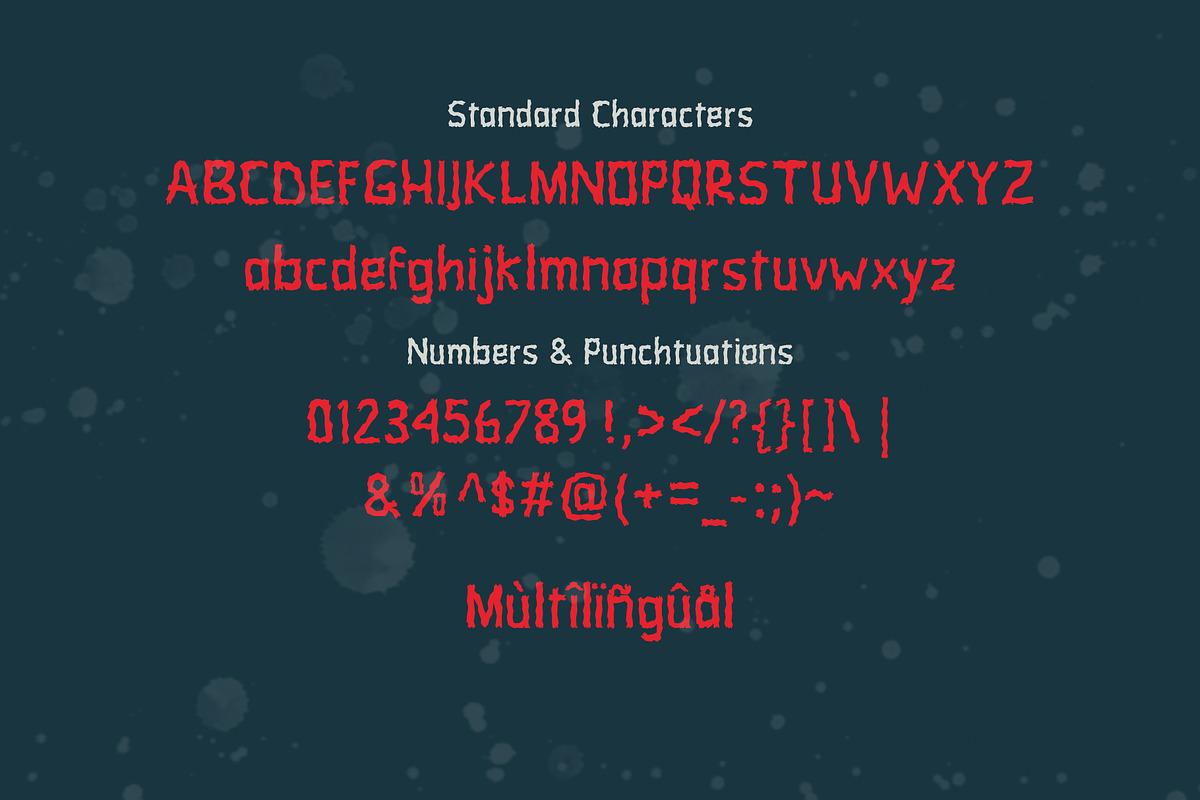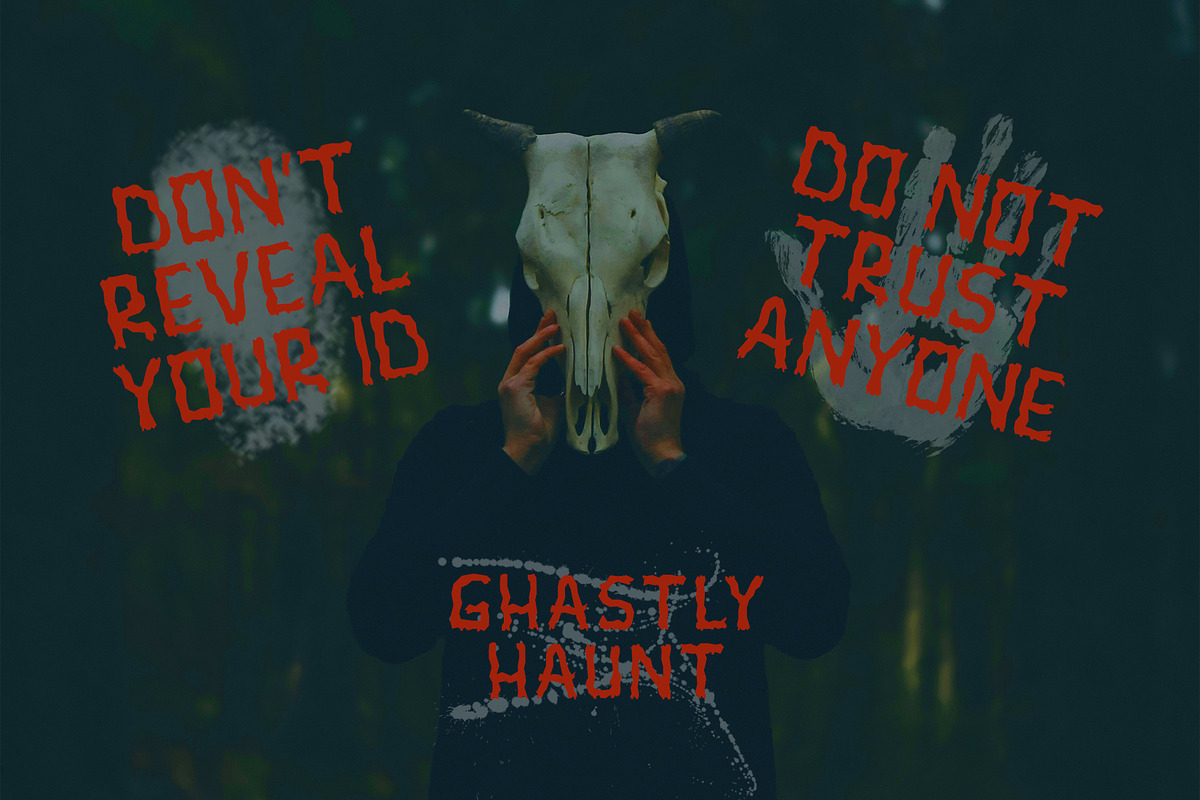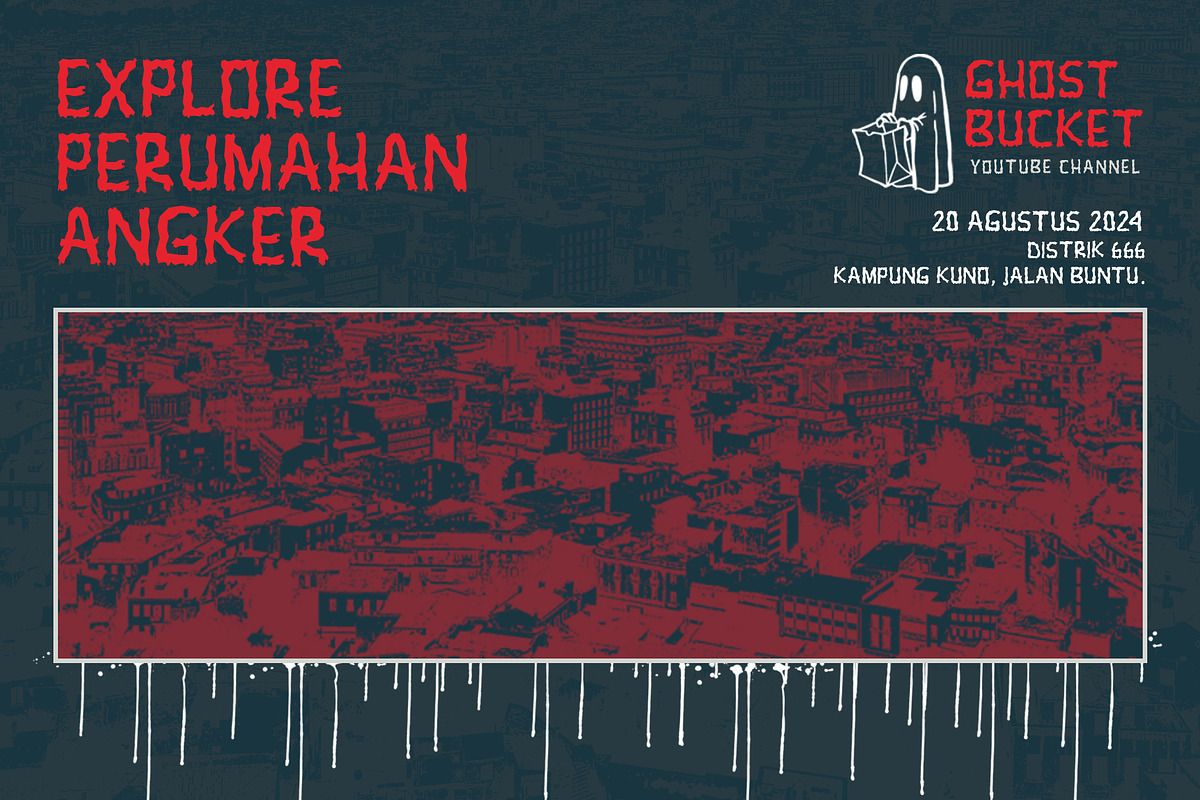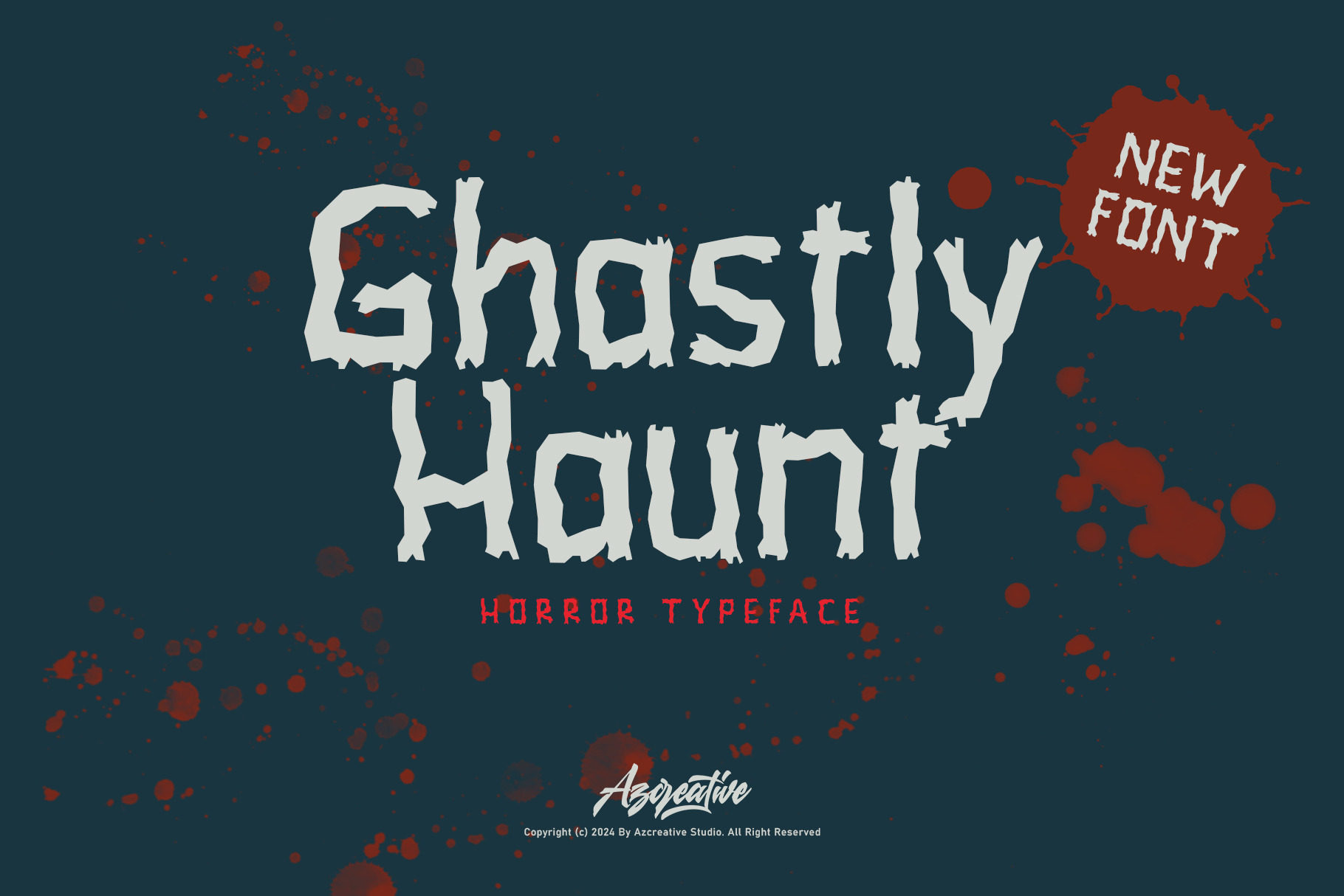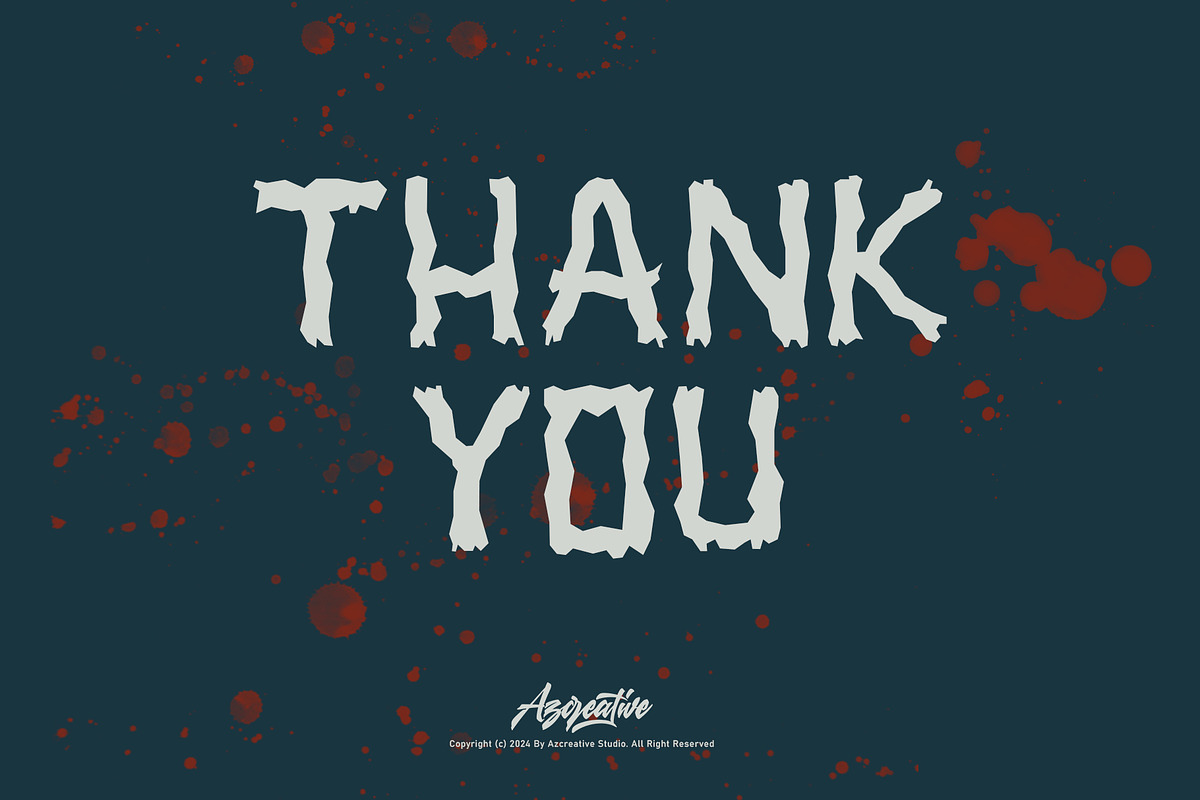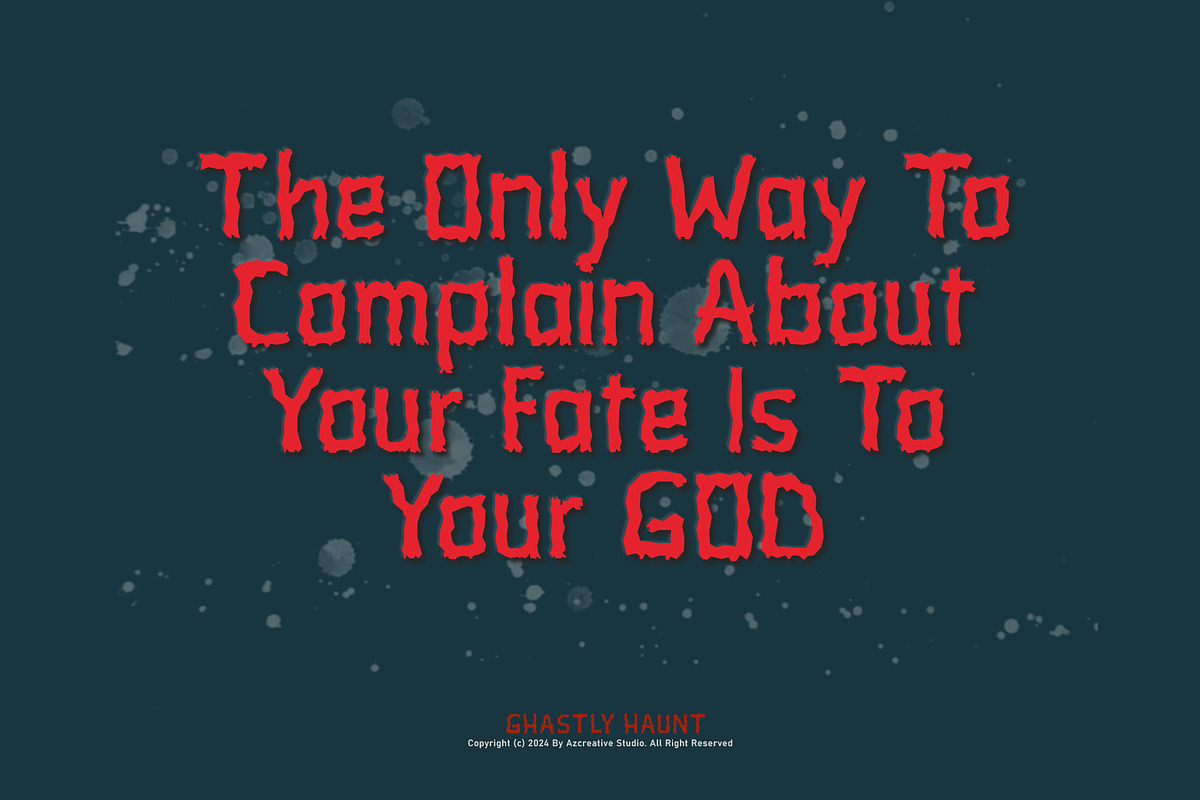
Ghastly Haunt - Unique Spooky Font
Ghastly Haunt is the ultimate font for all your horror and Halloween-themed designs. Inspired by eerie, unsettling forms, Ghastly Haunt delivers unique and bold characters in both uppercase and lowercase. This font is perfect for horror movie posters, Halloween party invitations, merchandise designs, and any creative project needing a spooky touch.
With its rough, jagged letterforms and irregular textures, Ghastly Haunt brings an intense, chilling vibe to your designs. Complete support for numbers, punctuation, and multilingual characters makes this font incredibly versatile for various design needs.
- Full support for numbers and punctuation
- Ideal for horror, Halloween, and dark-themed designs